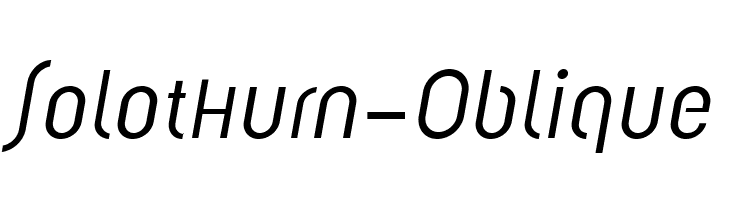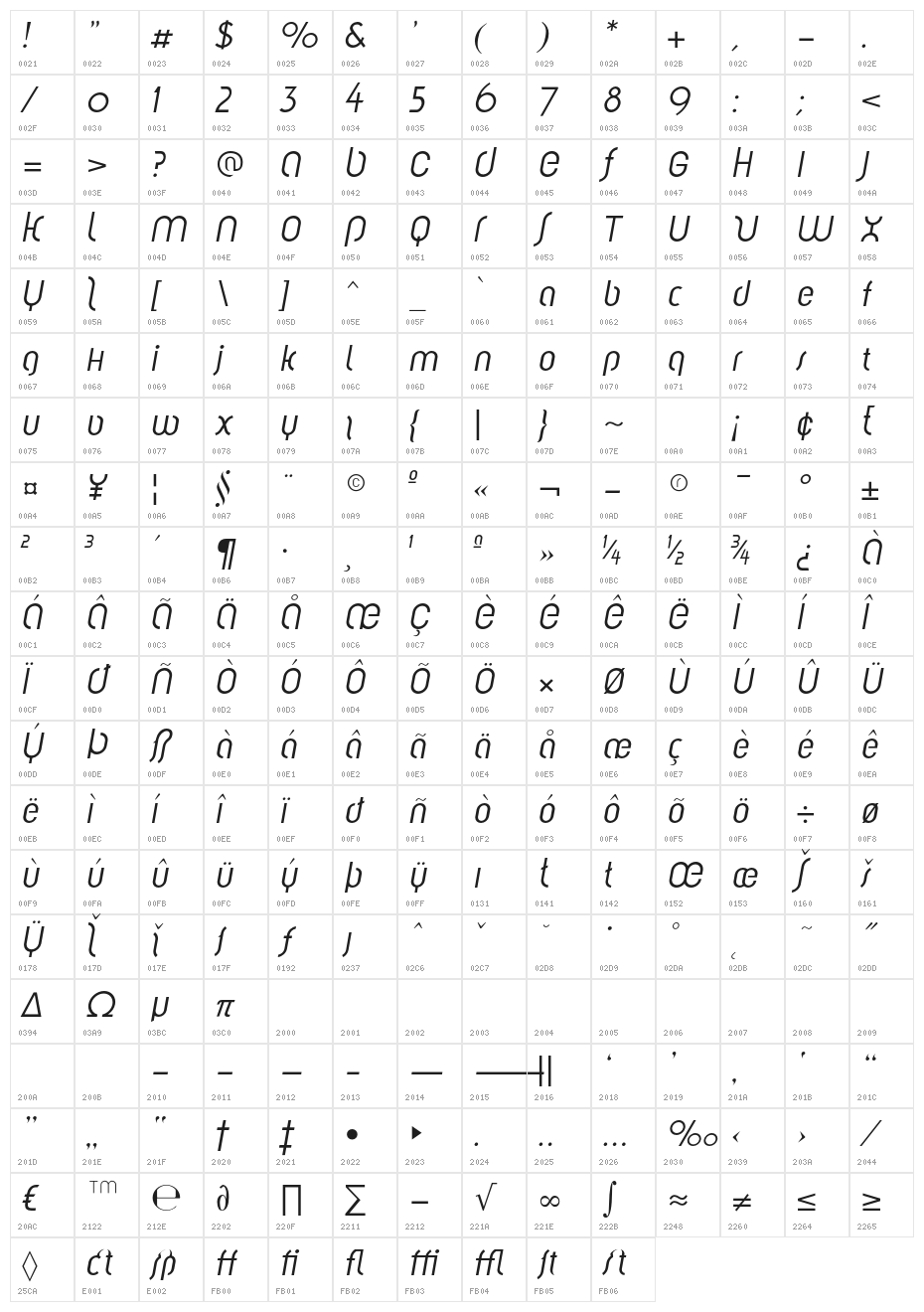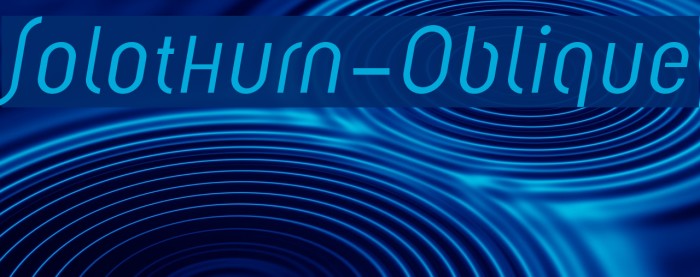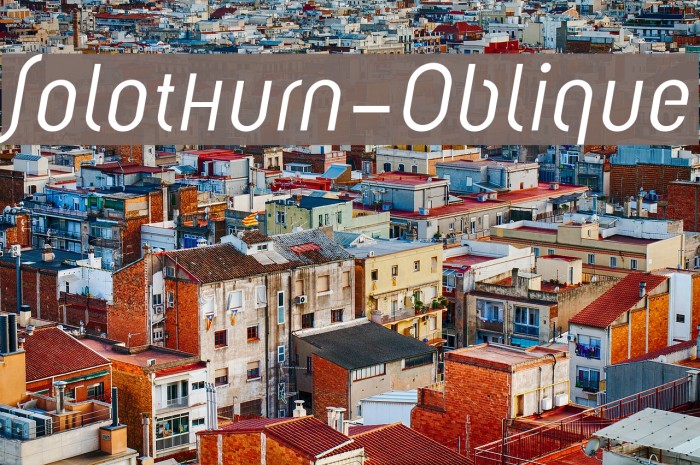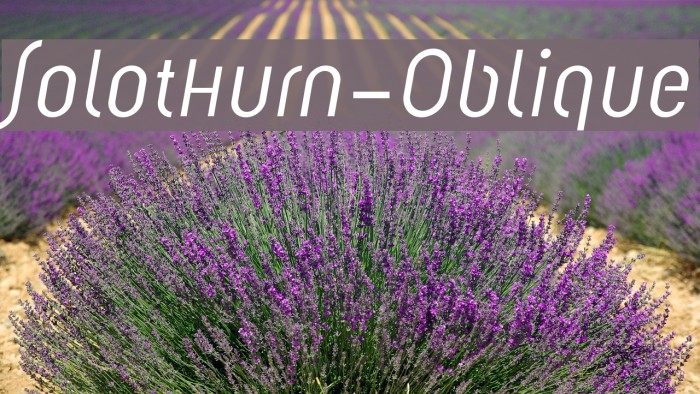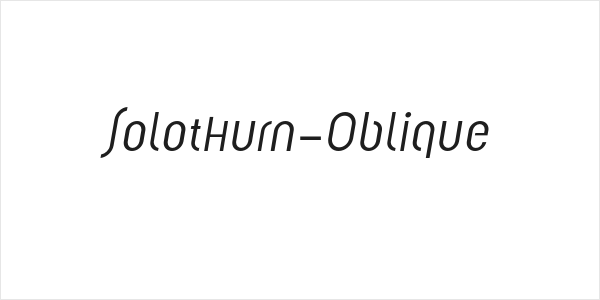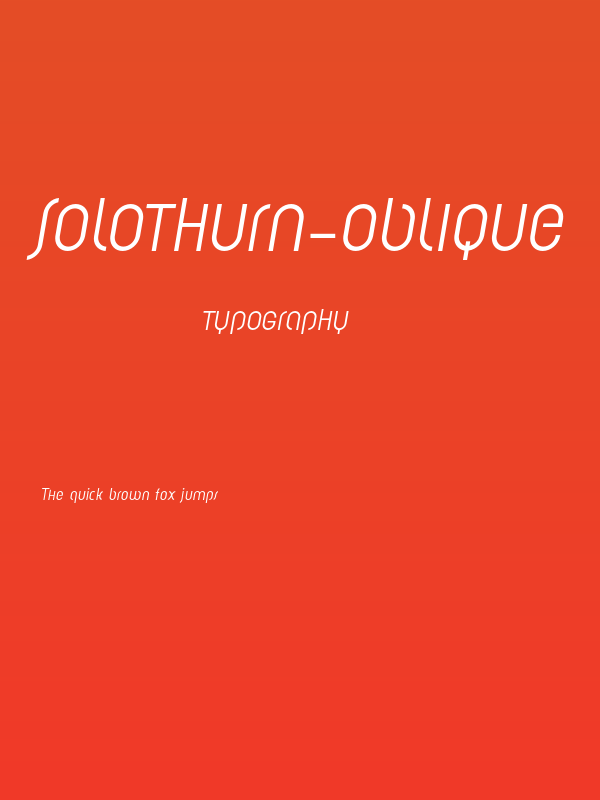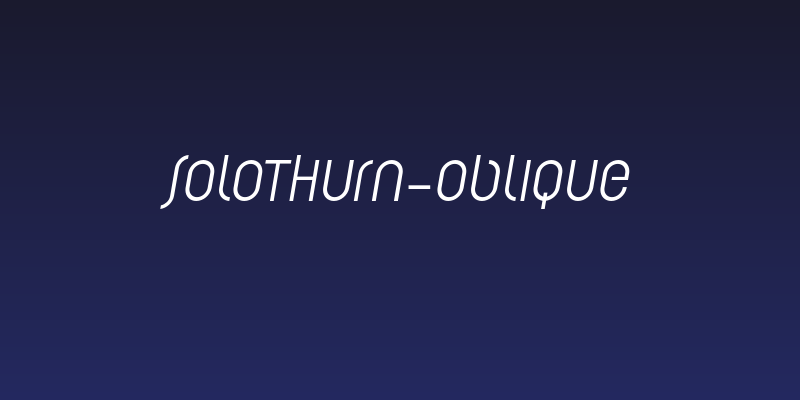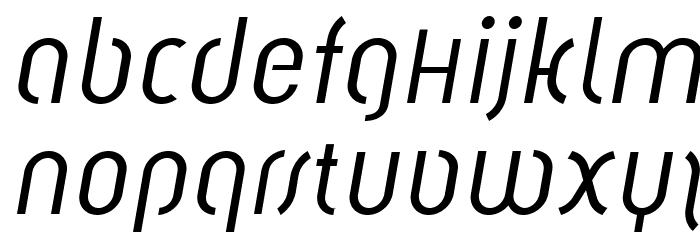
Solothurn-Oblique Font
Solothurn-Oblique Description
This font features a sleek, modern design with an oblique style that gives it a dynamic and forward-leaning appearance. The characters are slightly condensed, enhancing its contemporary feel. The strokes are consistent, with medium contrast, providing a clean and elegant look. The font maintains a uniform weight throughout, ensuring readability while adding a touch of sophistication. Its unique style makes it suitable for various creative applications, offering a balance between formality and flair.
| Proposed Projects | Ideal for branding, advertising, and editorial design projects that require a modern and stylish touch. |